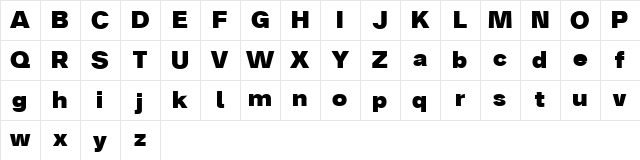
Complete Analogue Reduced 85 Black glyph index. Displaying only characters natively supported by Analogue Reduced 85 Black font.
Analogue Reduced is a composed and adaptable typeface that performs quietly and consistently across a wide range of design contexts.
Who designed the Analogue Reduced 85 Black font?